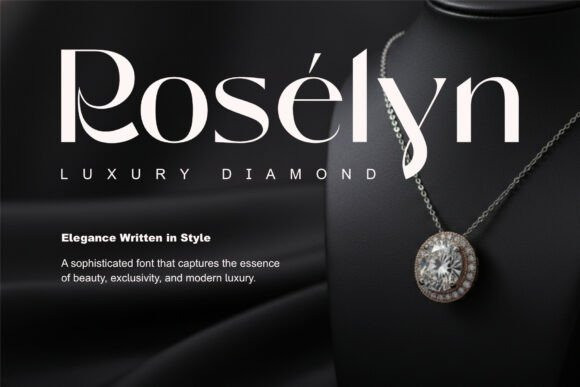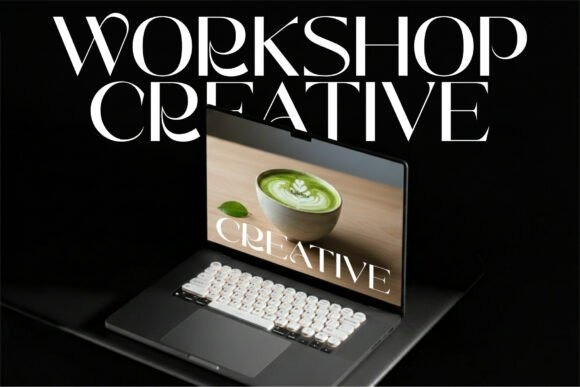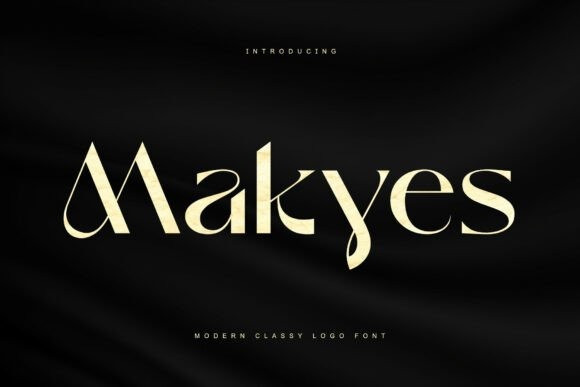
Makyes Font
Makyes Font is a modern, classy logo font crafted to deliver elegance, confidence, and timeless sophistication in contemporary design. Designed with clean forms and refined details, Makyes blends modern minimalism with a luxurious aesthetic, making it an excellent choice for high-end branding and stylish visual identities. This font is perfect for designers who want to create logos that feel exclusive, polished, and memorable.
Makyes was created with the vision of modern luxury—where simplicity meets elegance. Inspired by premium fashion brands, upscale boutiques, and refined corporate identities, Makyes embodies clarity, balance, and class. Every curve and stroke is designed to feel intentional and graceful, allowing your designs to communicate prestige without excess. Whether used for logos, branding, or editorial headlines, Makyes brings a strong yet elegant presence to any project.